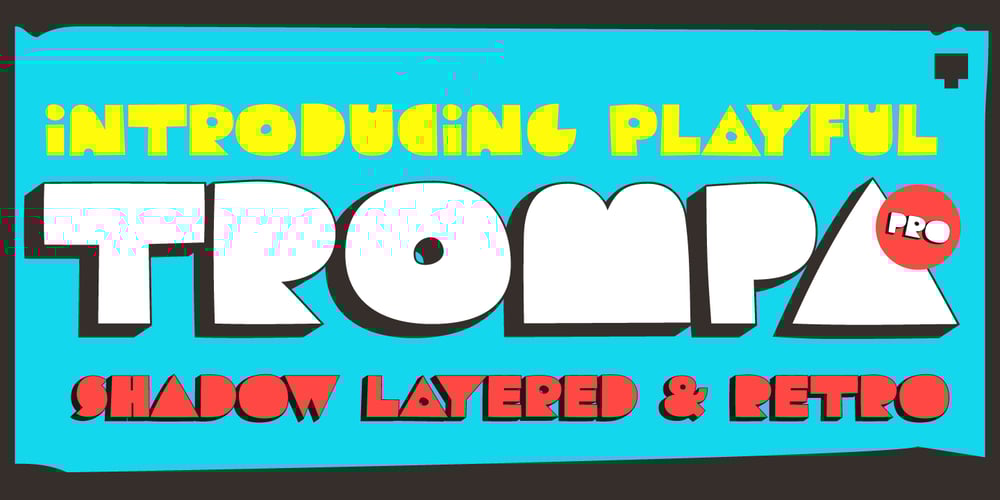
TOMO Trompa Pro
TOMO Trompa Pro font
TOMO Trompa Pro Font Family was designed by TOMO Fonts and published by TOMO Fonts. TOMO Trompa Pro contains 2 styles and family package options. TOMO Trompa (PRO) is a geometric handmade face with a retro and fun touch. Its friendly feel makes this font incredibly versatile, fitting a wide range of contexts. Add it to your creative ideas and notice how it makes them stand out!. It also comes with a shadow style to combine and generate an awesome effect.